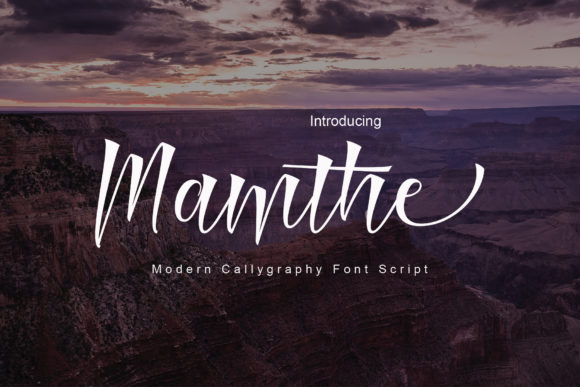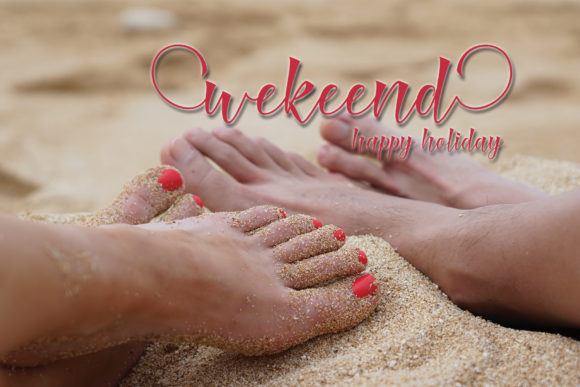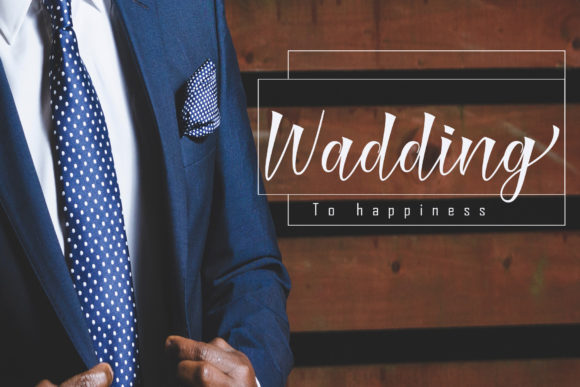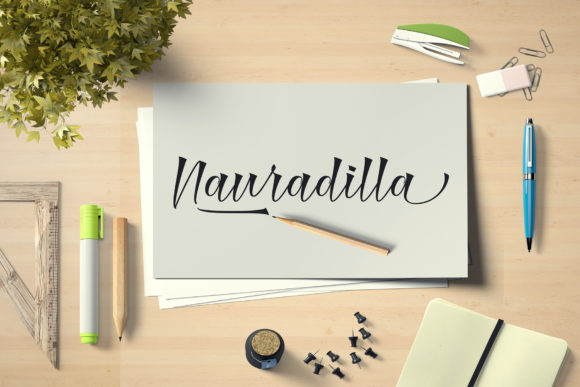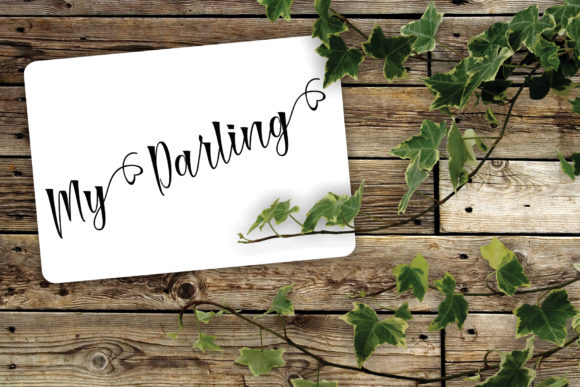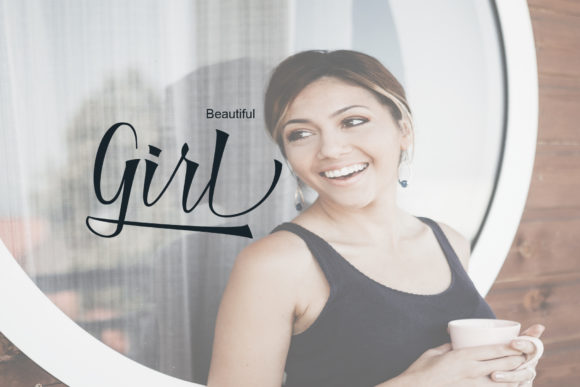
HomeScript FontsMamthe Font Script Fonts Mamthe Font FacebookXPinterestWhatsApp Mamthe Font Poster 2 Mamthe Font Poster 3 Mamthe Font Poster 4 Mamthe Font Poster 5 Mamthe Font Poster 6 About Mamthe Font Mamthe is a great example of modern calligraphy: It’s authentic and feels handmade. DOWNLOAD ON CREATIVE FABRICAThis font is sold and delivered by Creative Fabrica. Font Canyon may earn a commission if you buy through this link. People also explored Lecture Note Font Hello World Font Marshandam Font Masteria Font Blacksix Rock Font Dear Journal Font Farmhouse Font Longmire Font Tesalonica Font 340 0 TagsMamthe Font Previous articleAwestruck FontNext articleHand Paint Font LEAVE A REPLY Cancel reply Comment: Please enter your comment! Name:* Please enter your name here Email:* You have entered an incorrect email address! Please enter your email address here Website: Save my name, email, and website in this browser for the next time I comment. Personal Use Free Starborn Font Personal Use Free Read more about this font Styledeep Personal Use Free Read more about this font Boronic Personal Use Free Read more about this font Marthissa Personal Use Free Read more about this font BLOG How to Cut Any Font on Cricut: Convert a Font to SVG (Free) Turn any font into a clean SVG so it cuts crisp on Cricut - a quick 3-step workflow using a free font-to-SVG tool. Best Fonts for T-Shirt Design – Top 2025 Picks The 10 Best Handwriting Fonts to Add Personality to Your Designs Where to Buy American Fonts Online in 2024